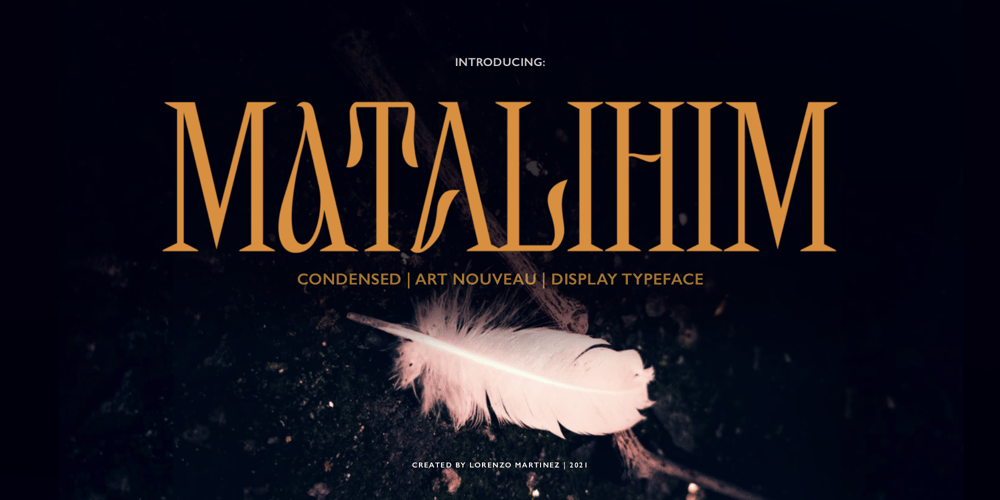
Matalihim
Matalihim font
Matalihim Font Family was designed by Lorenzo Gabriel Martinez and published by Lurinzu Studios. Matalihim contains 1 styles and family package options. “Matalihim” is a condensed display font that combines modernism, vintage and Art Nouveau characteristics to form a serene and decorative typeface. Matalihim is develop with the intention to be used as an elegant solution for your next magazine layout, or for any graphics that require a sleek look with an elegant and serene flair. It’s also best to use it in a an old-school, vintage and rustic themed designs to accentuate the old-school like flourishes of the characters. Using it in large medias could help maximize the font’ decorative and stylish look. *This font includes letters, numbers, alternates, standard ligatures, multi language support, and all essential marks needed.